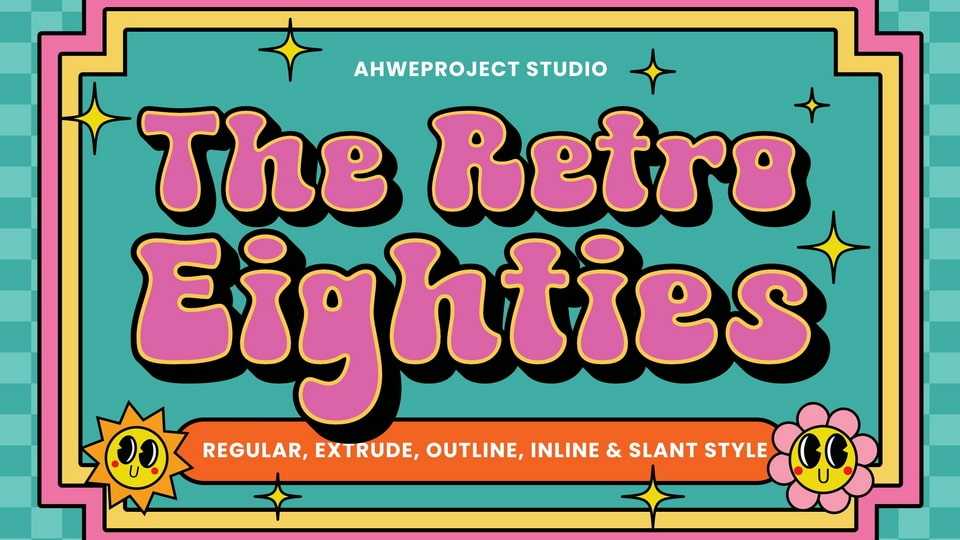
Download The Retro Eighties font, a vibrant and playful typeface that captures the nostalgic essence of 1980s aesthetics. With its bold, rounded letterforms and whimsical charm